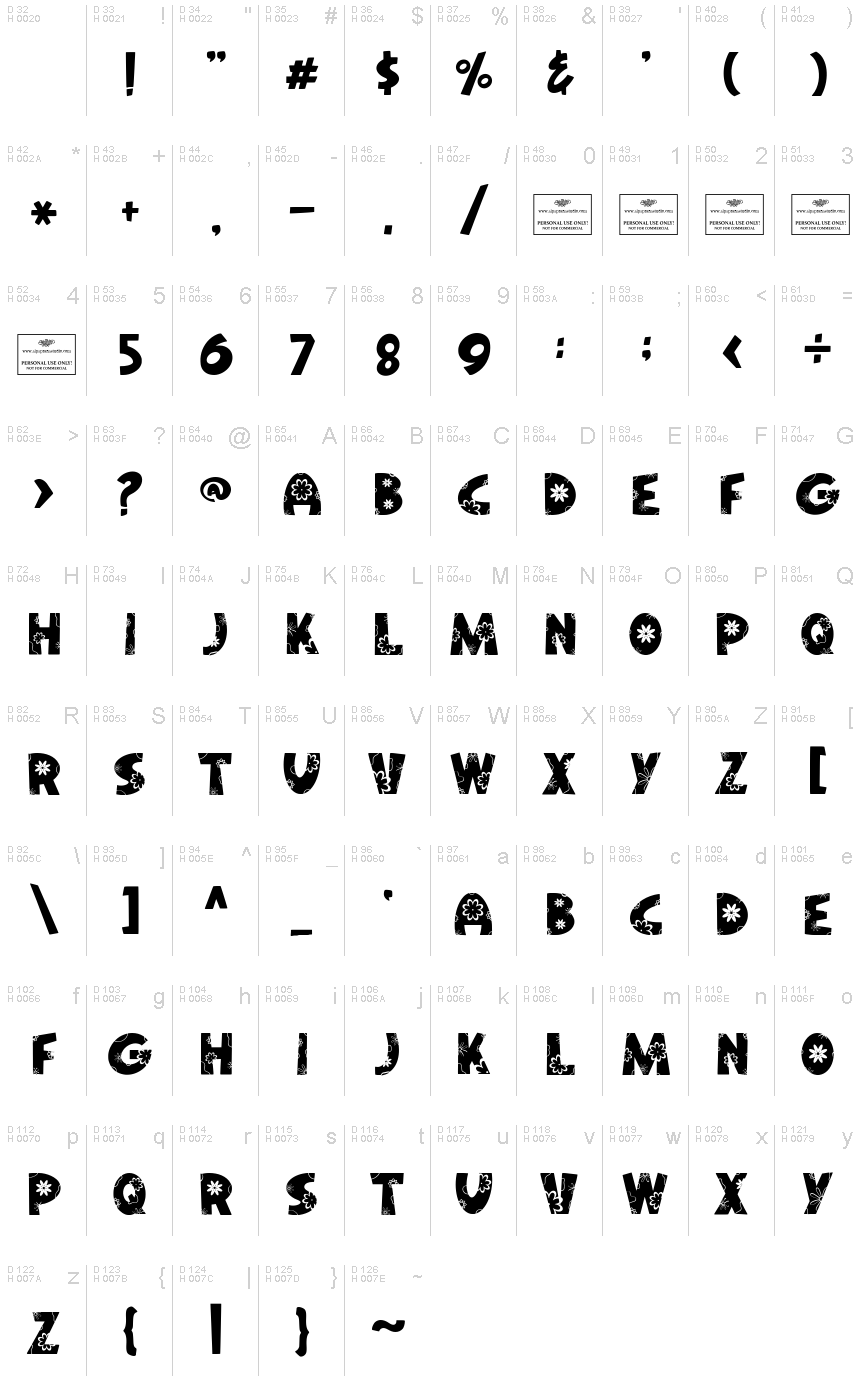
Pure Blossom
Pure Blossom, a captivating display font designed by Alpaprana Studio, exudes a sense of whimsical elegance. Its bold, decorative strokes evoke the graceful petals of a blossoming flower, creating a striking visual impact. The intertwining patterns and intricate details within the letterforms lend an organic, handcrafted feel, evoking a sense of natural beauty and charm.
The distinctive character of Pure Blossom makes it an ideal choice for a variety of design applications, from eye-catching headings and titling to impactful branding and packaging elements. Its versatility allows it to seamlessly integrate into projects that seek to convey a touch of refined sophistication, whether it's in the realm of fashion, lifestyle, or creative industries.